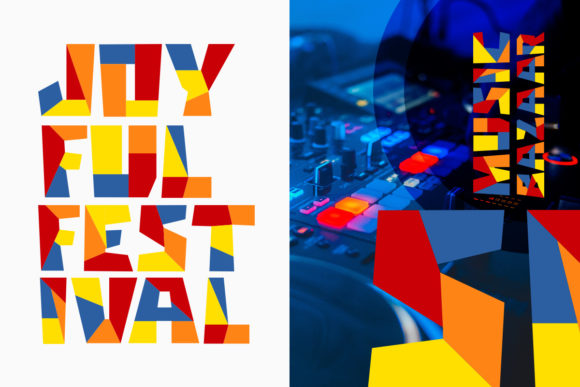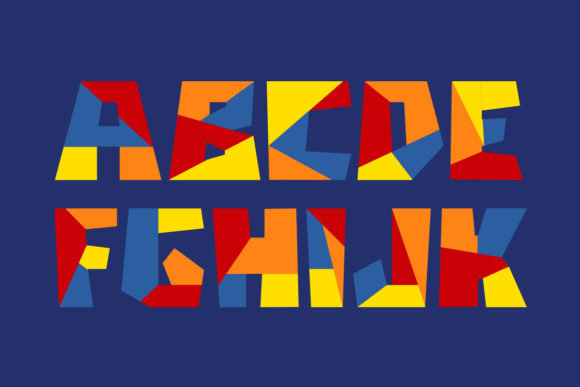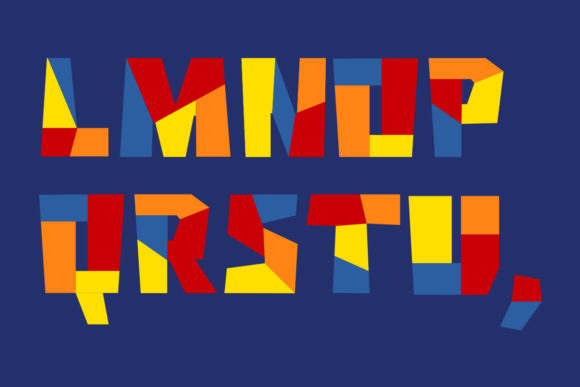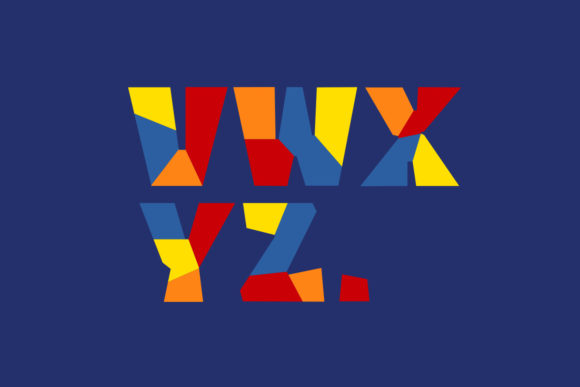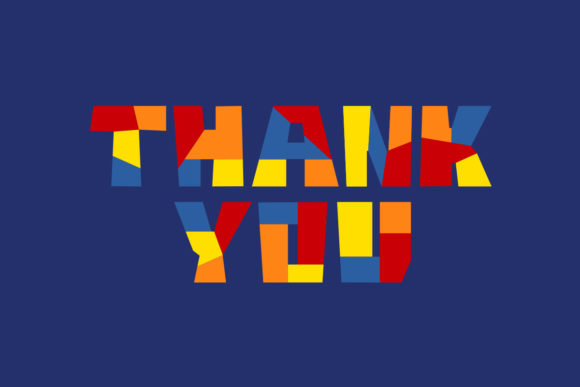
Introducing Decolite Stone Font: The Ultimate Design Game-Changer
Are you tired of using the same old fonts in your designs? Look no further! Decolite Stone Font is here to revolutionize your creative projects with its cool and chunky lettered style. This catchy and unique font is designed to bring your design ideas to life, and we’re excited to dive into its features and benefits.
What is Decolite Stone Font?
Decolite Stone Font is a color font, specifically an Opentype-SVG font, which means it’s a cutting-edge font technology that allows for colorful and dynamic text rendering. This font is perfect for designers, crafters, and anyone looking to add a pop of color and personality to their projects.
Key Features of Decolite Stone Font
- Cool and Chunky Lettering: Decolite Stone Font boasts a unique and eye-catching lettered style that’s sure to grab attention.
- Color Font Technology: As an Opentype-SVG font, Decolite Stone Font allows for vibrant colors and dynamic text effects.
- Endless Variations: With Decolite Stone Font, you can experiment with countless design possibilities, from bold statements to subtle textures.
Design Ideas with Decolite Stone Font
Decolite Stone Font is an incredibly versatile font that can be used in a wide range of design projects. Here are some ideas to get you started:
- Social Media Graphics: Add a pop of color and personality to your social media posts with Decolite Stone Font.
- Planners and Journals: Use Decolite Stone Font to create eye-catching headers and titles for your planners and journals.
- Signs and Banners: Make a statement with Decolite Stone Font on your signs and banners.
- Crafting Projects: Add a touch of personality to your crafting projects, such as cards, gift tags, and DIY decorations.
To get the most out of Decolite Stone Font, here are some tips and tricks:
- Experiment with Colors: Try out different color combinations to find the perfect look for your design.
- Play with Texture: Use Decolite Stone Font to create textured and layered designs.
- Mix and Match Fonts: Combine Decolite Stone Font with other fonts to create unique and interesting typography.